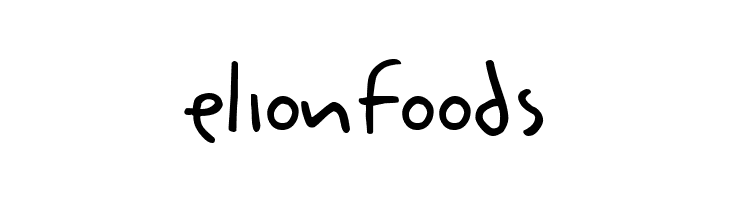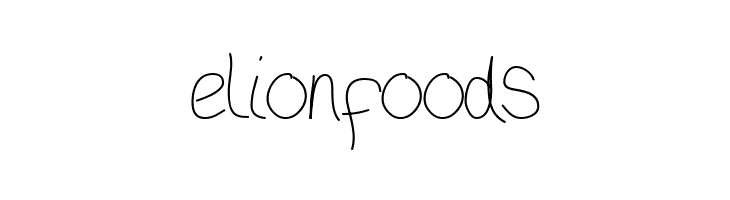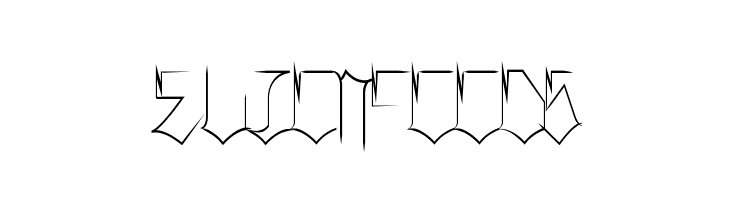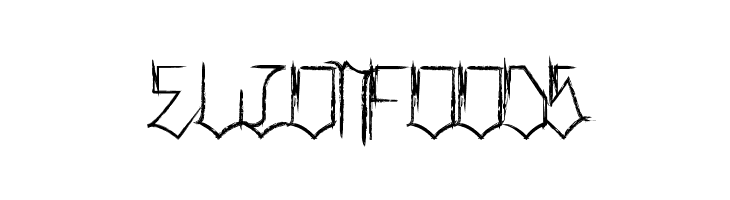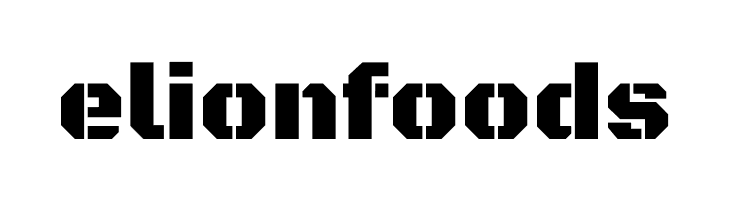
A decorative font with intricate floral patterns within each character.
A bold, handwritten-style font with dynamic, sweeping strokes.
A dynamic, brush-stroke font with an edgy and expressive style.
A bold, geometric font with a playful, modern style.
A bold, playful handwritten font with dynamic strokes and a casual style.
A lively handwritten font with expressive, fluid strokes and a casual elegance.
A playful, rope-themed decorative font with bold, rounded characters.
A bold, decorative font with a grid-like overlay on each character.
A bold, decorative font with characters inside star shapes.
A dynamic cursive script font with fluid, connected letters and varied stroke thickness.
A whimsical, fantasy-themed decorative font with intricate, hand-drawn elements.
A geometric, abstract font with blocky, angular shapes and a futuristic aesthetic.
An ornate and decorative font with intricate detailing and elegant embellishments.
A modern, geometric font with bold, clean lines and a striking presence.
Abstract, experimental font with organic, amorphous forms.
An abstract, artistic font with fragmented and distorted letterforms.
A playful, casual handwritten font with smooth, flowing lines.